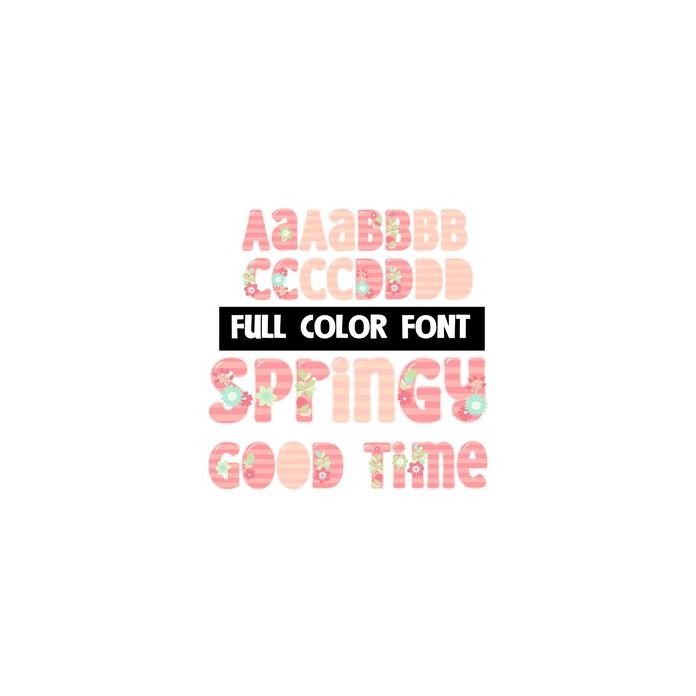
This full-color font features a pastel color palette, stripes, and cute florals. There is a an alt version w/ 2nd and 3rd colors available through your system's or Silhouette's glyph map.